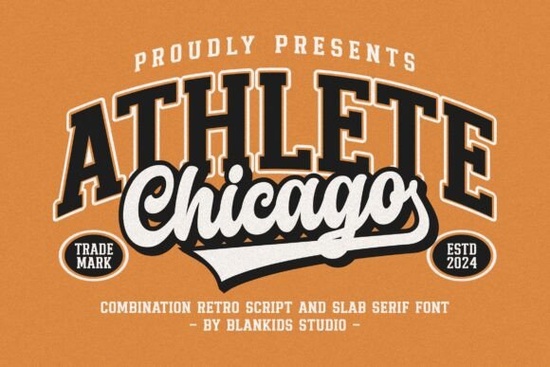
Chicago Athlete Font is a versatile typeface that brings a retro sporty vibe to any design project. Whether you're working on a logo, poster, or product packaging, this font combination offers a unique blend of vintage and modern aesthetics. Its uppercase and lowercase letters, along with numerals and punctuation, are all designed with a varsity-style flair that stands out.
If you're looking for a font that can add energy and personality to your work, Chicago Athlete is an excellent choice. It's perfect for branding, promotional materials, and creative projects that require a bold, nostalgic look. The font comes in four different combinations, giving you flexibility to match your specific needs.
One of the key strengths of Chicago Athlete is its readability. Despite its distinctive style, it remains easy to read, making it ideal for both digital and print applications. The retro sporty design also makes it a great fit for projects related to sports, education, or any theme that benefits from a classic feel.
Chicago Athlete Font works well in a variety of design scenarios. For example, it’s a popular choice for creating eye-catching logos for sports teams, schools, or local businesses. Its bold appearance also makes it suitable for posters, banners, and other promotional materials that need to grab attention.
Chicago Athlete Font is more than just a stylish choice it’s a practical one too. Its clean design and easy-to-use format make it accessible for both beginners and experienced designers. Whether you're working on a personal project or a client’s request, this font provides a reliable and professional look.
The font’s retro sporty style is especially appealing if you’re targeting audiences who appreciate vintage aesthetics. It can help create a sense of nostalgia while still maintaining a modern edge. This balance makes it a valuable addition to any designer’s toolkit.
When choosing a font, it’s important to consider how it will look in different contexts. Chicago Athlete Font is designed to work well across a range of applications, making it a flexible option for many types of design work.
Chicago Athlete Font is a great option for anyone looking to add a retro sporty style to their designs. Its combination of boldness and readability makes it suitable for a wide range of projects. Whether you're a designer, crafter, or small business owner, this font can help elevate your creative work.
Remember, the right font can make a big difference in how your design is perceived. With Chicago Athlete Font, you’re not just choosing a typeface you’re adding a unique visual element that can set your work apart.